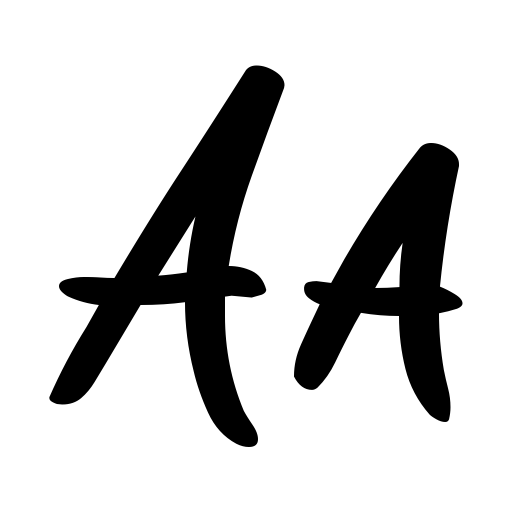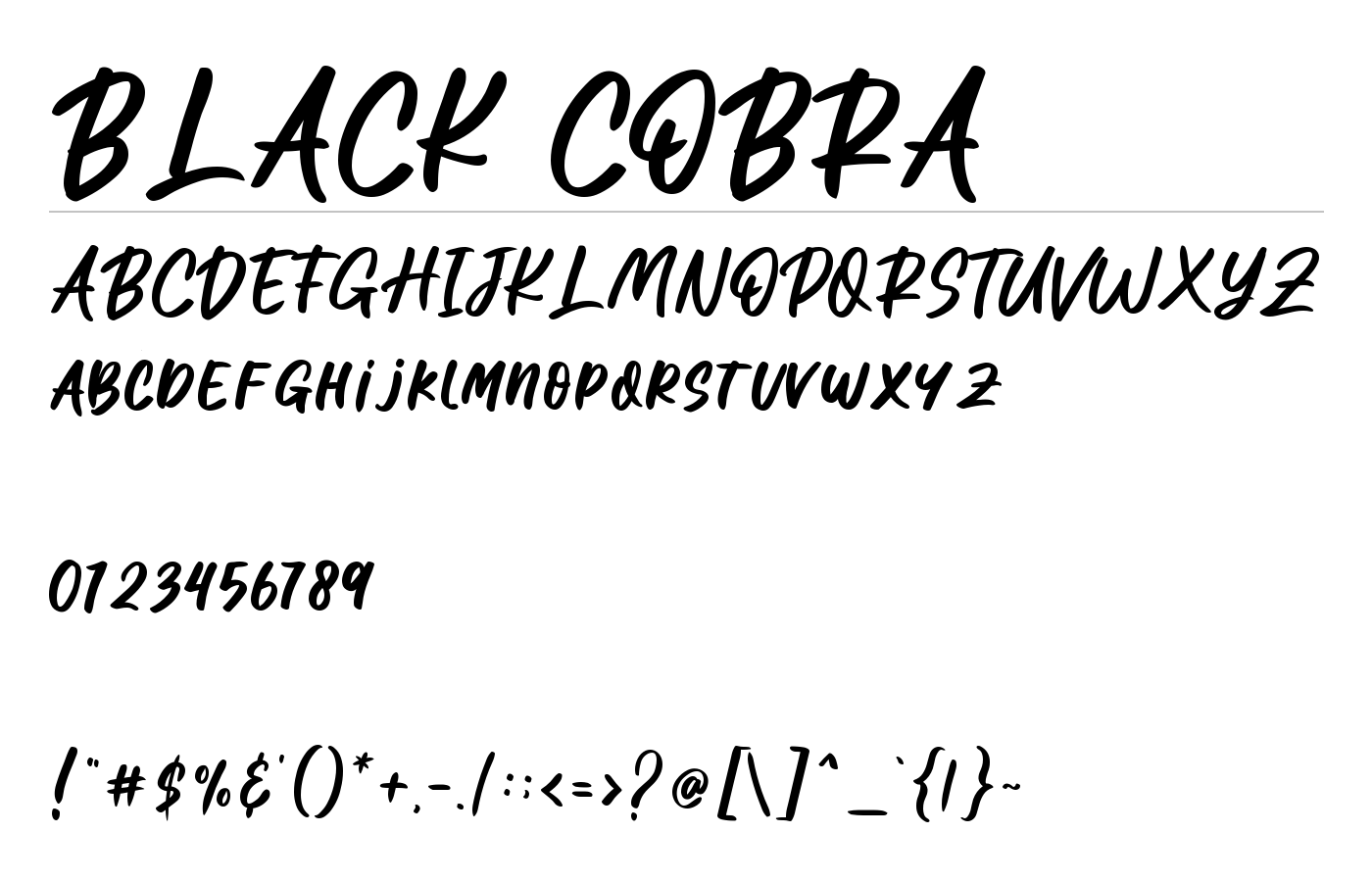
BLACK COBRA is a dynamic script font with a bold, brush-style appearance that conveys energy and personality. Its slightly condensed, fluid letterforms with varied stroke widths create a lively and informal feel, making it ideal for branding, headlines, and designs that seek a personal, handcrafted touch. This font works particularly well for creative projects, casual logos, and expressive editorial displays.
BLACK COBRA Font
About BLACK COBRA Font